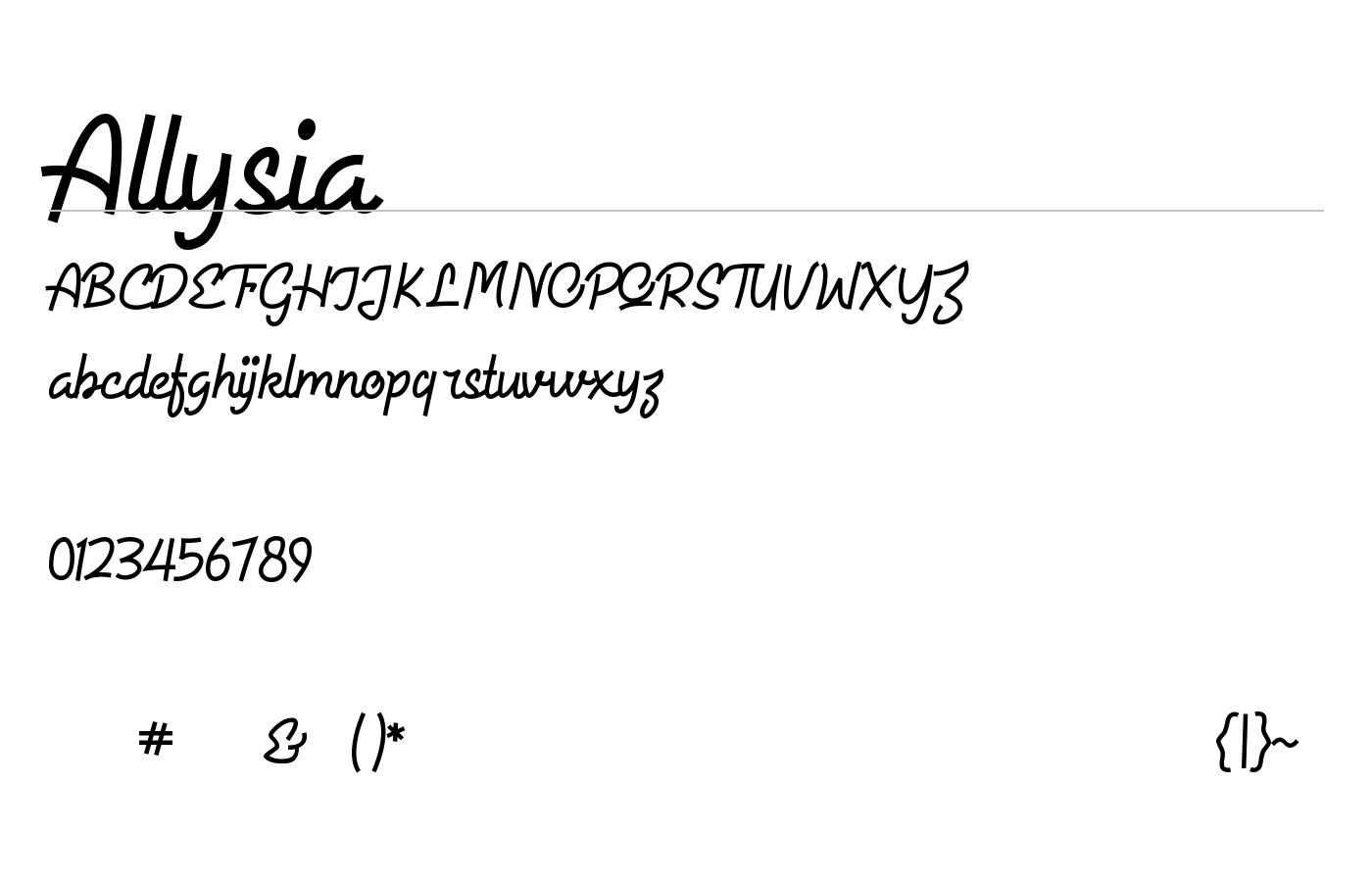
Allysia is a lively script font with a handwritten feel, featuring smooth, flowing strokes and a moderate contrast that adds personality without sacrificing readability. Its playful yet elegant letterforms with unique flourishes make it ideal for creative projects, invitations, and branding that seek a personal, approachable touch. This font works well in headlines and decorative uses where warmth and charm are desired.
Allysia Font
About Allysia Font
| Font family | Allysia Font |
| Designer | Letter Battoyart 2020 - Ribut Riyayat |